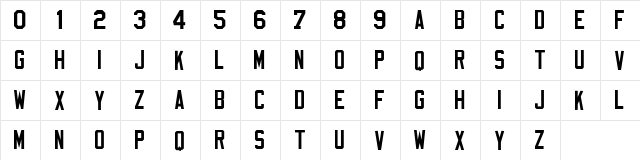
Varsity Classic C Regular
Design Context for Varsity Classic C Typeface
Varsity Classic C has the bold swagger of sports branding: strong, assertive letterforms designed to dominate headlines and jerseys alike.
A natural choice for gym brands, fantasy sports, jersey lettering, and action-driven headlines.
Pro Tip: Use Varsity Classic C in all-caps headlines where its athletic energy can fully express itself. Pair with a solid, simple sans for supporting text.